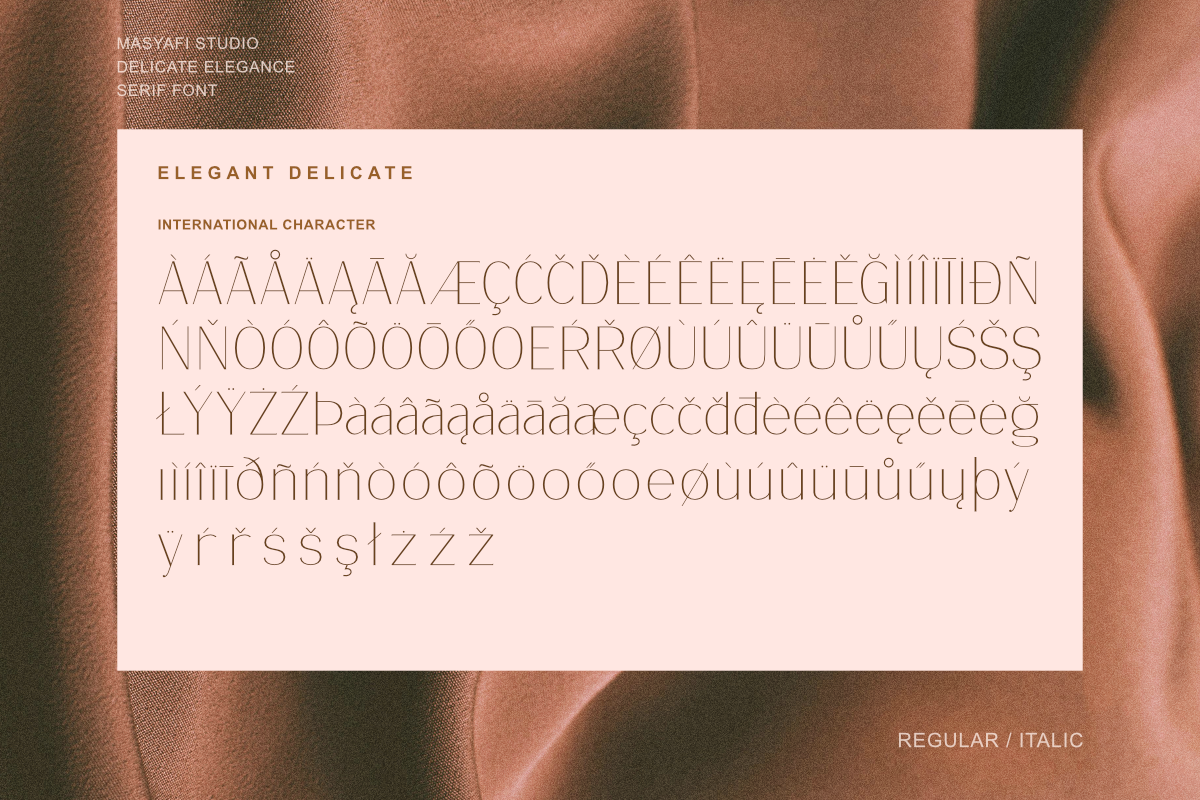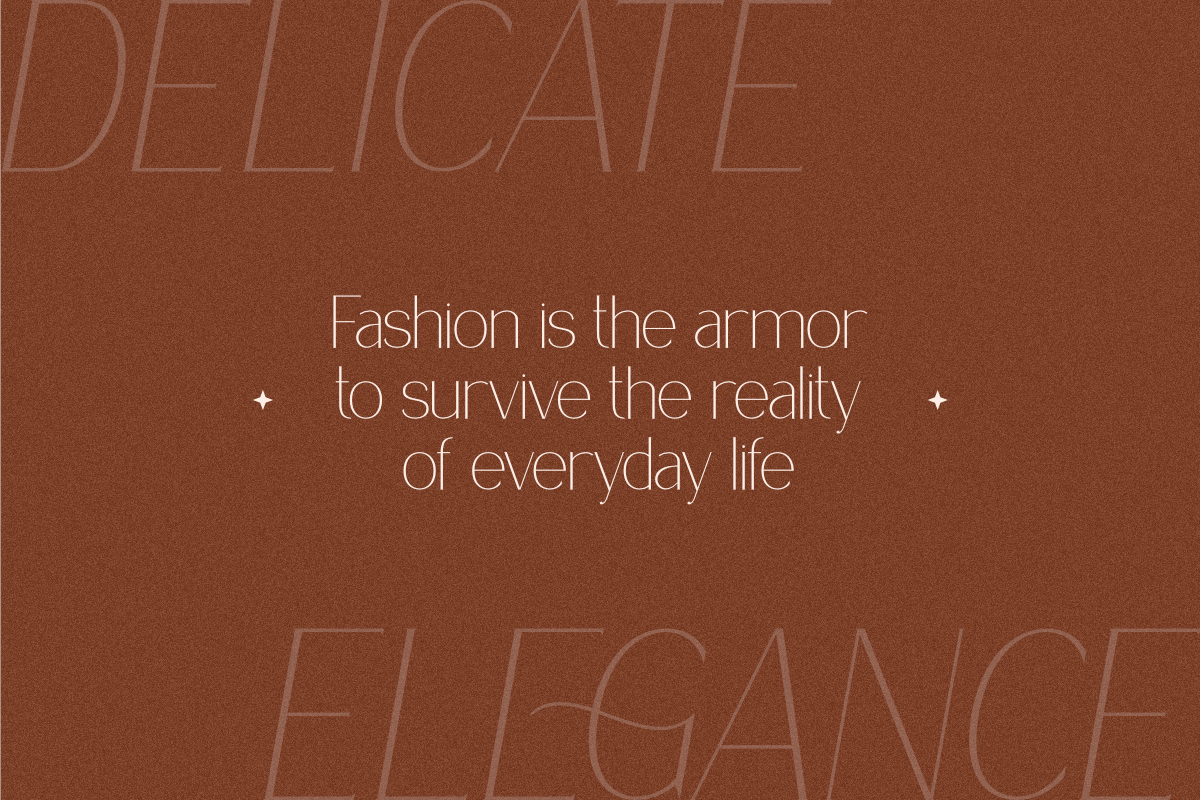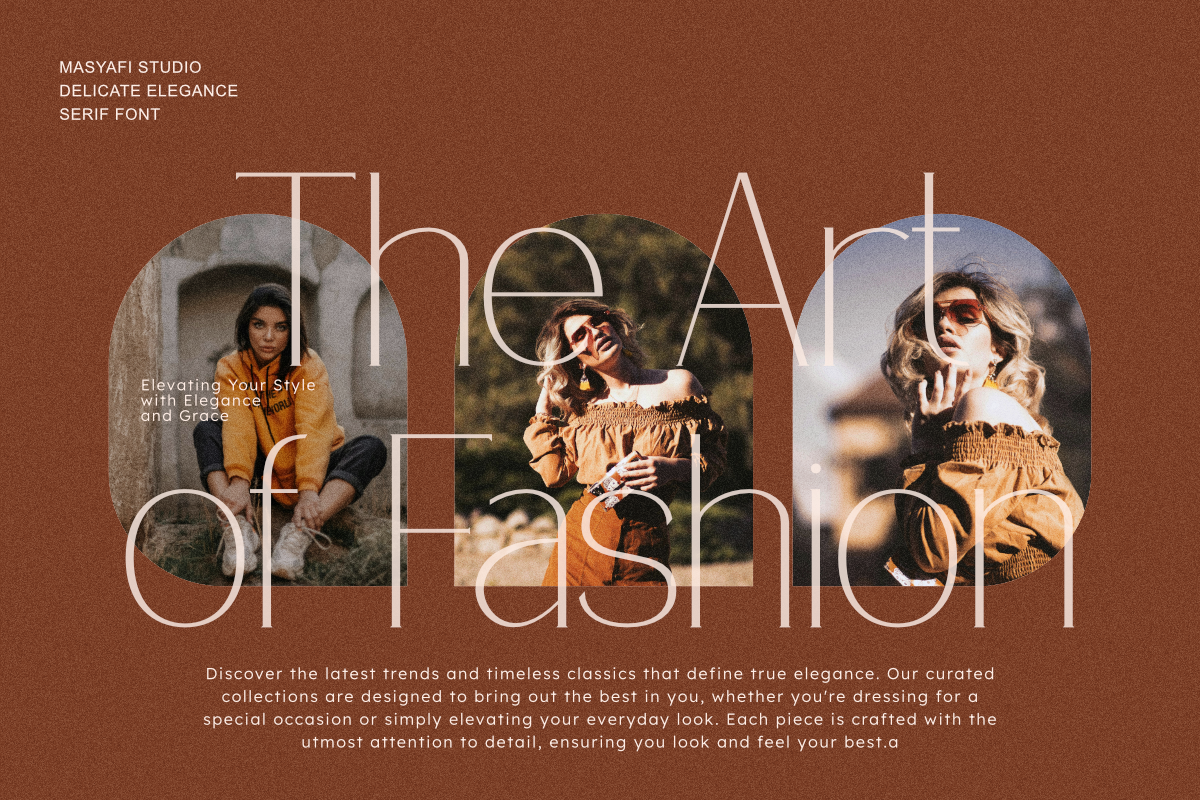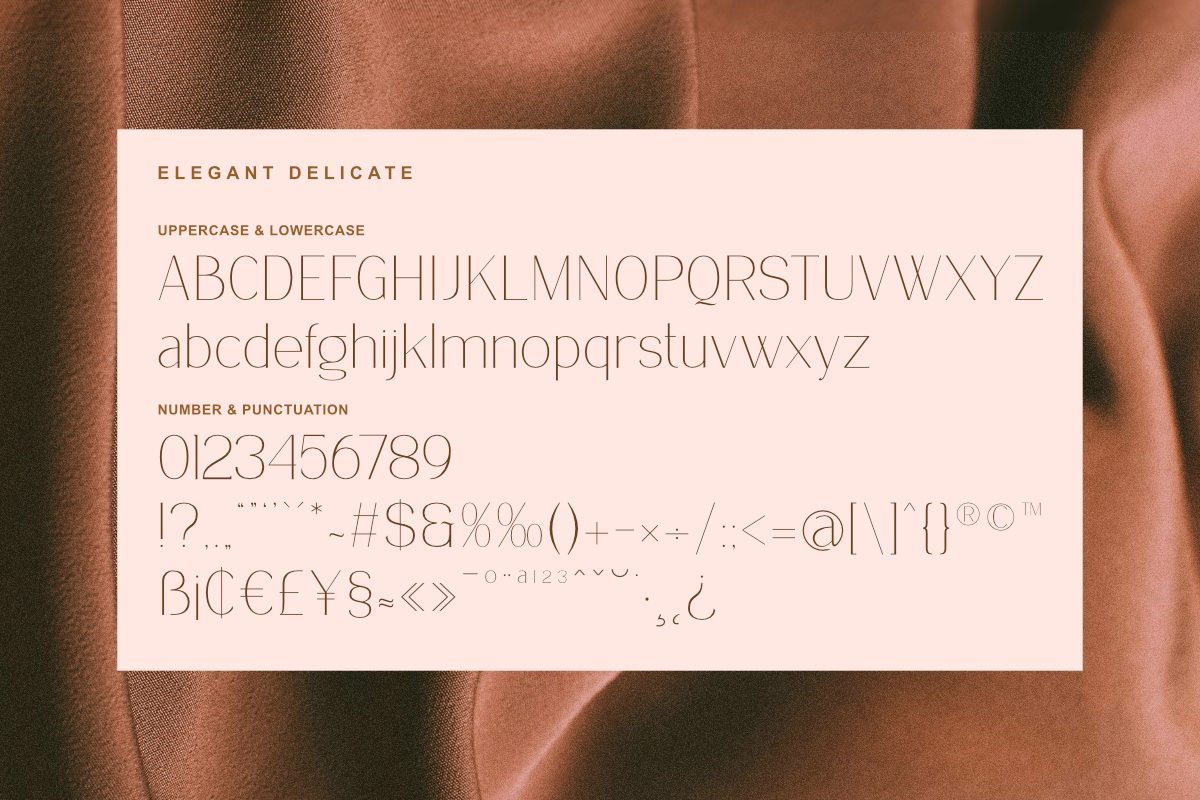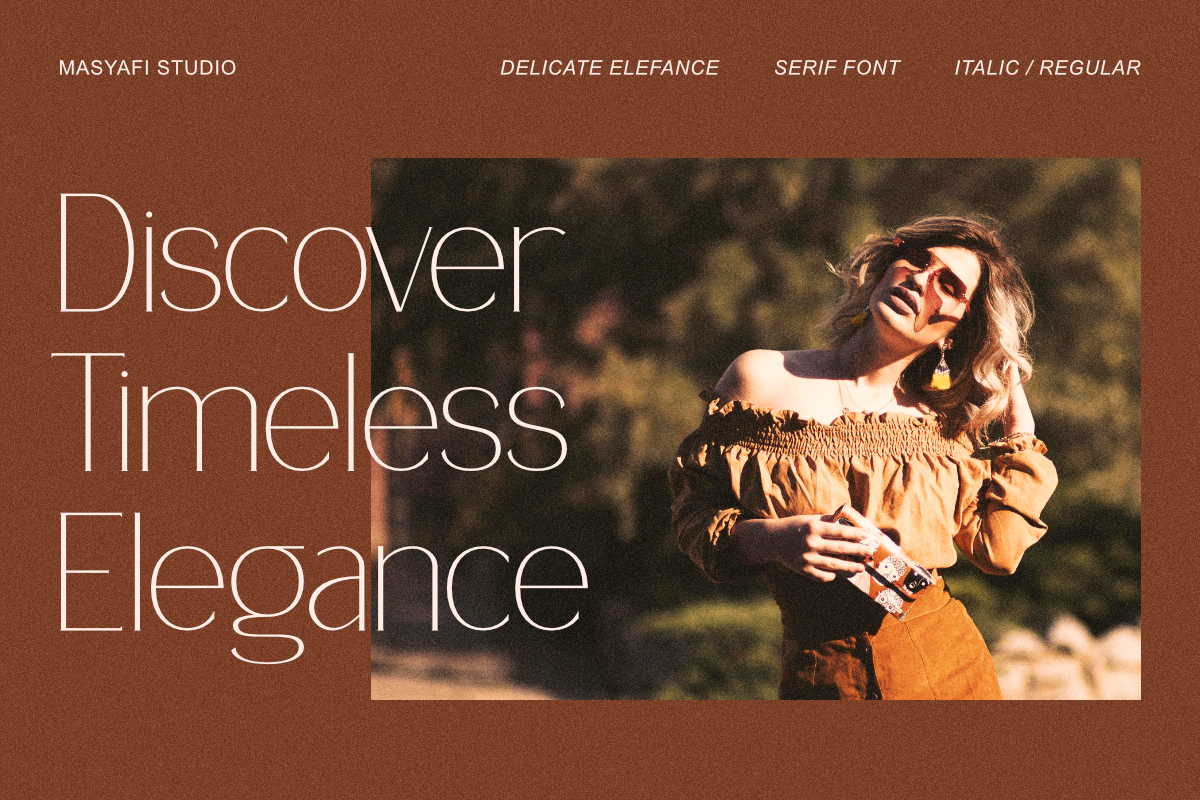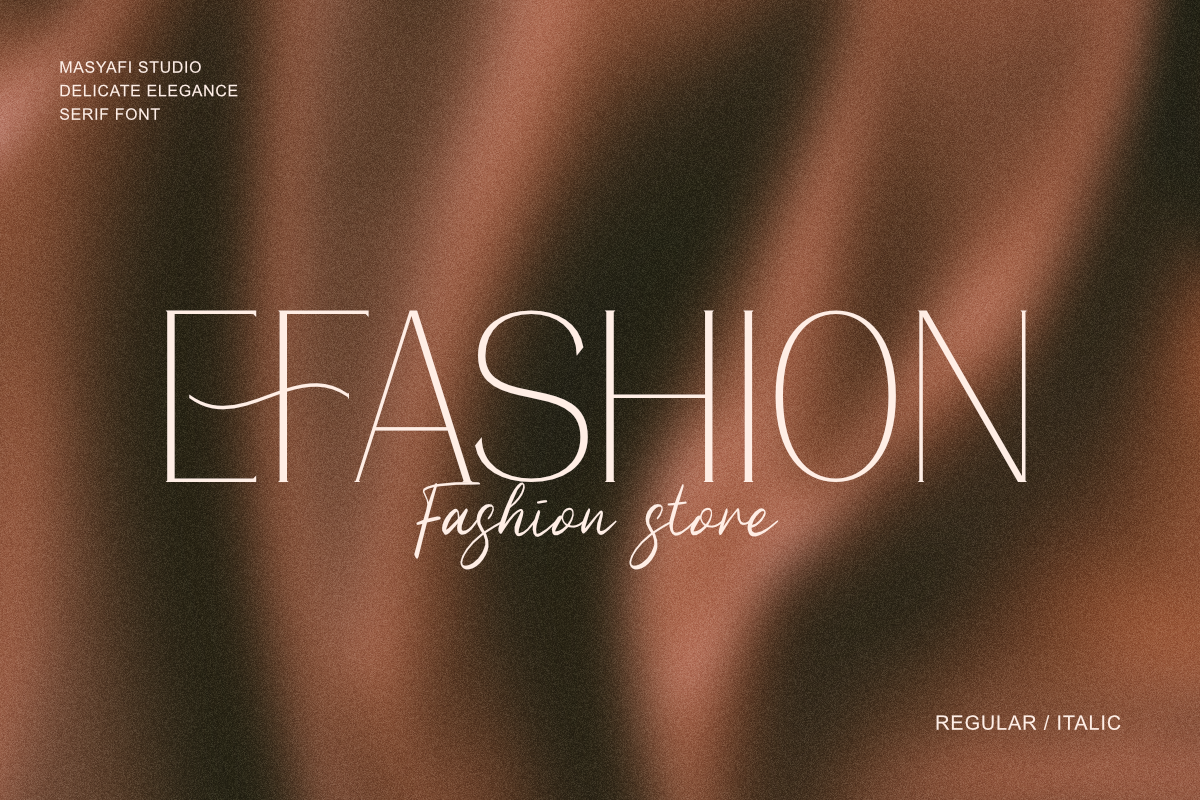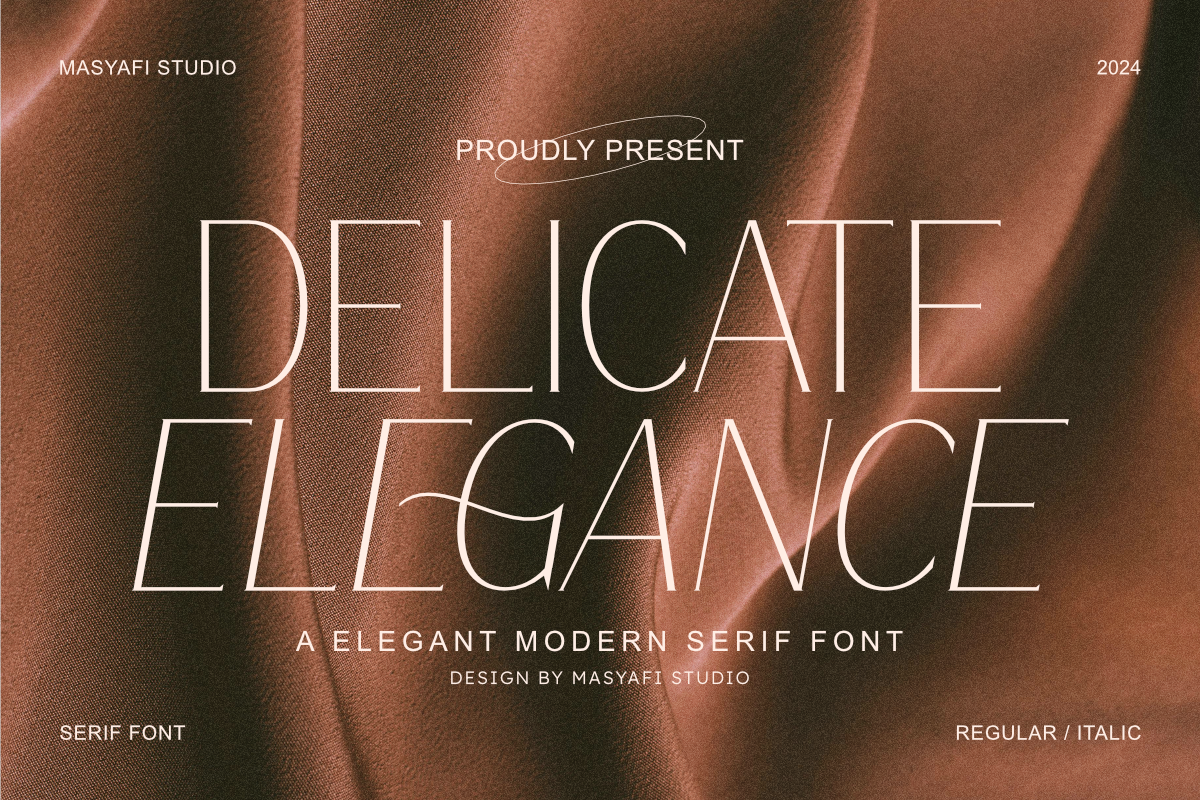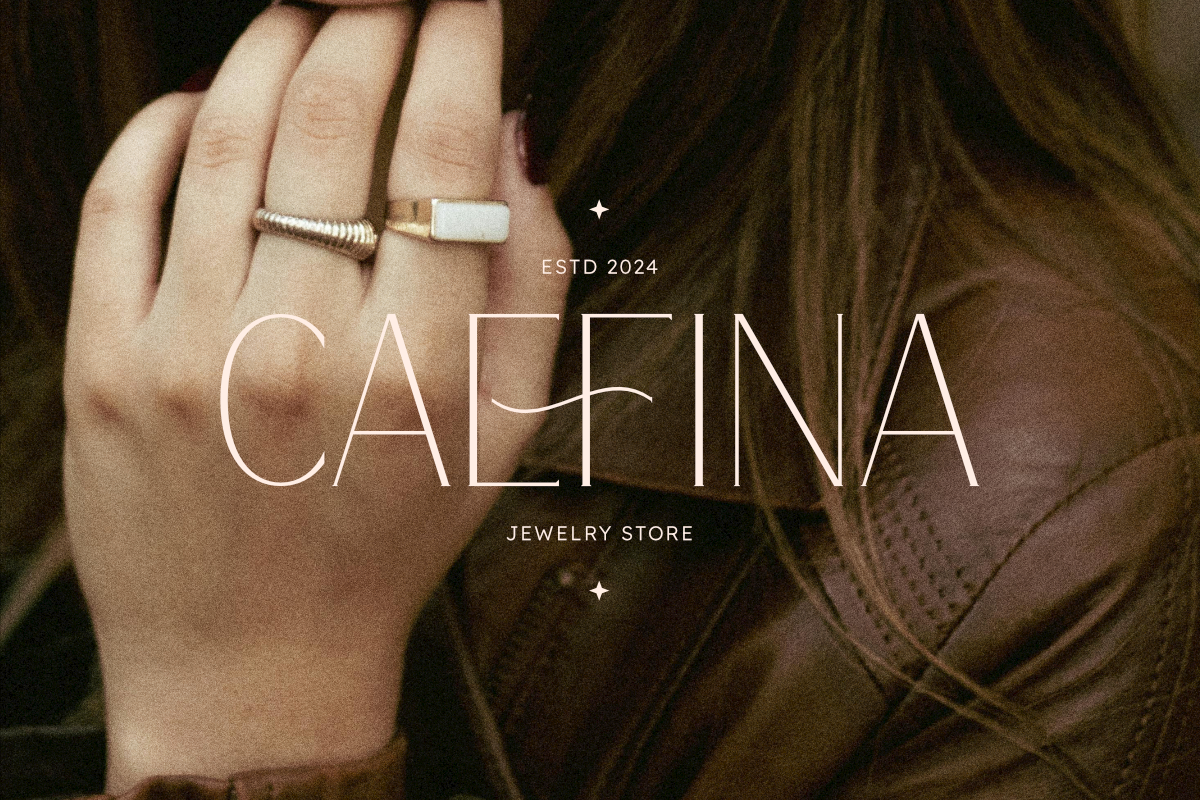
Delicate Elegance - Elegant Serif
Delicate Elegance is a modern elegant serif font. Delicate Elegance is the perfect choice for any creative, style, lifestyle design endeavor such as logos, advertising, watermarks on photography, stationery, branding projects, displays and magazines, invitations, corporate branding, product design, labels, business projects and many projects others with an elegant touch.
- Standart Glyphs
- Numberial and Punctional
- Multilingual & Ligature